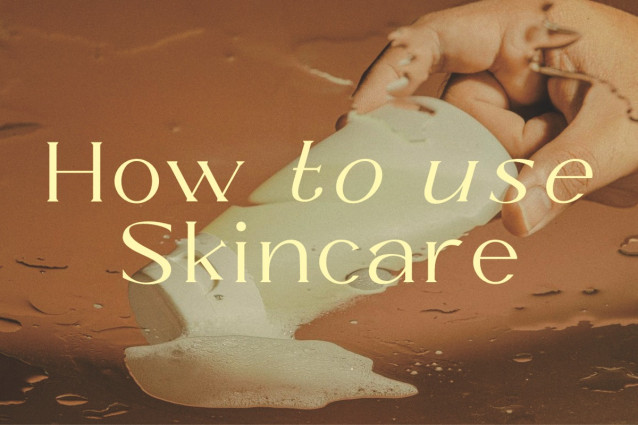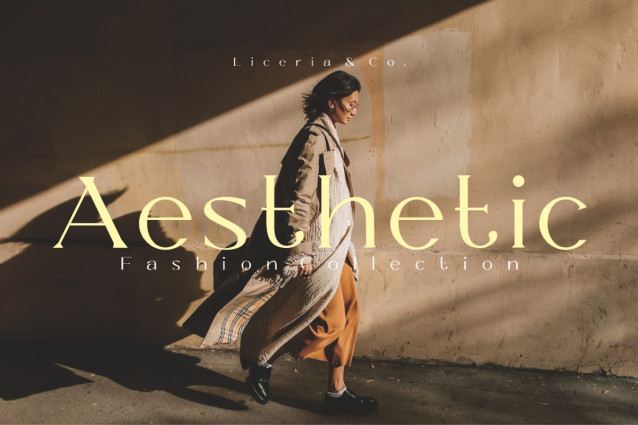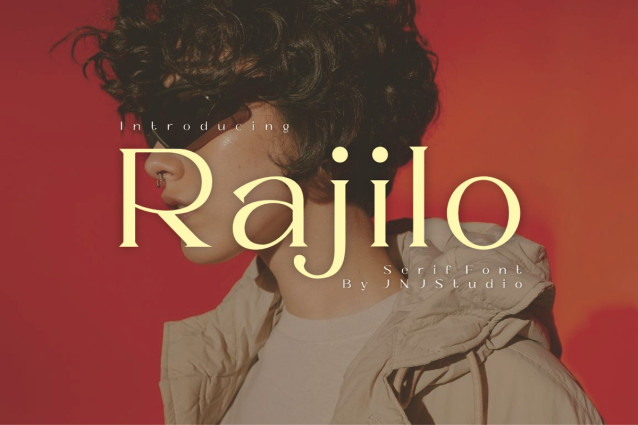
Rajilo Font
Rajilo Font is a refined modern serif typeface that blends timeless elegance with contemporary design. Characterized by its clean lines, high contrast strokes, and subtle curves, Rajilo offers a sophisticated appearance that is perfect for branding, editorial design, and luxury packaging.
Each letterform is crafted with attention to detail, balancing classic serif traditions with a fresh, modern twist. The sharp serifs and sleek proportions give Rajilo a confident yet graceful personality, making it ideal for headlines, logos, and high-end visual identities.
Whether you’re designing for fashion, lifestyle, or digital media, Rajilo delivers a bold aesthetic that stands out while remaining effortlessly elegant.